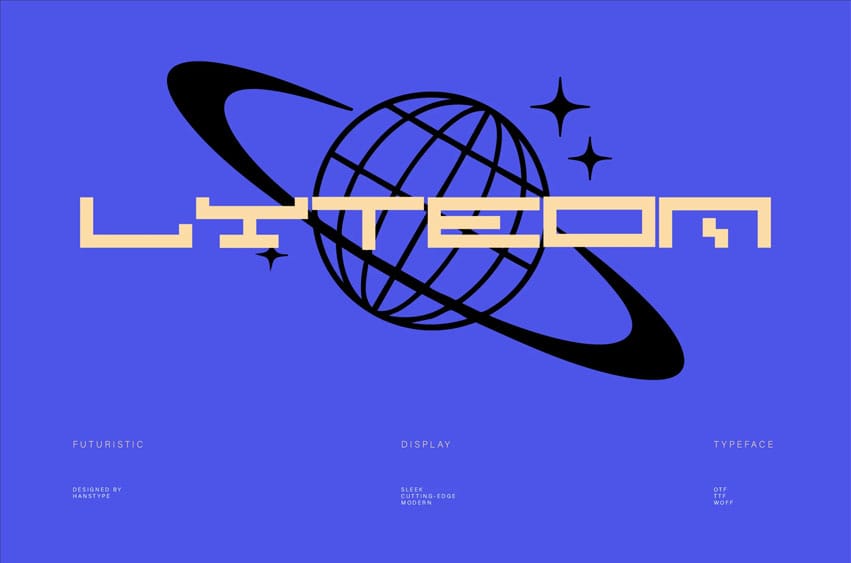
Lyteon Futuristic Font is a bold and striking futuristic typeface designed to embody the cutting-edge essence of tomorrow’s technology.
With its sleek, geometric forms and sharp, clean lines, Lyteon projects a sense of innovation and digital sophistication.